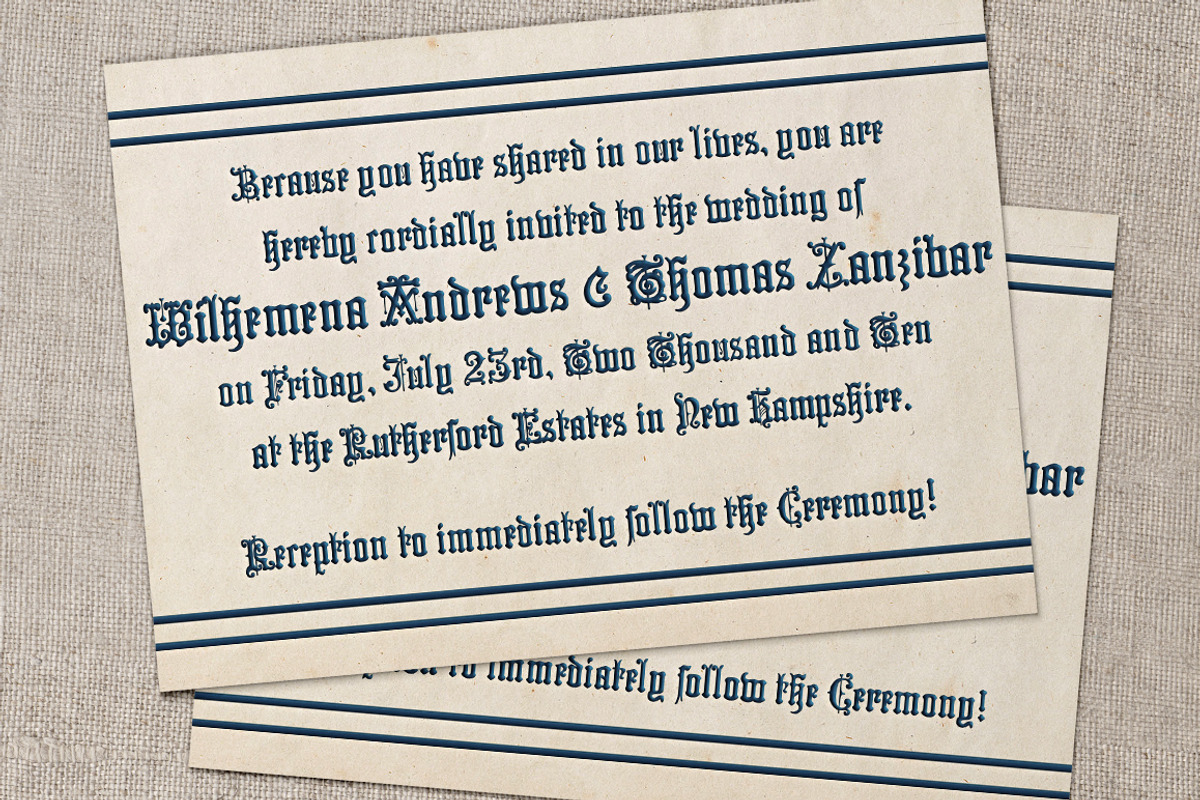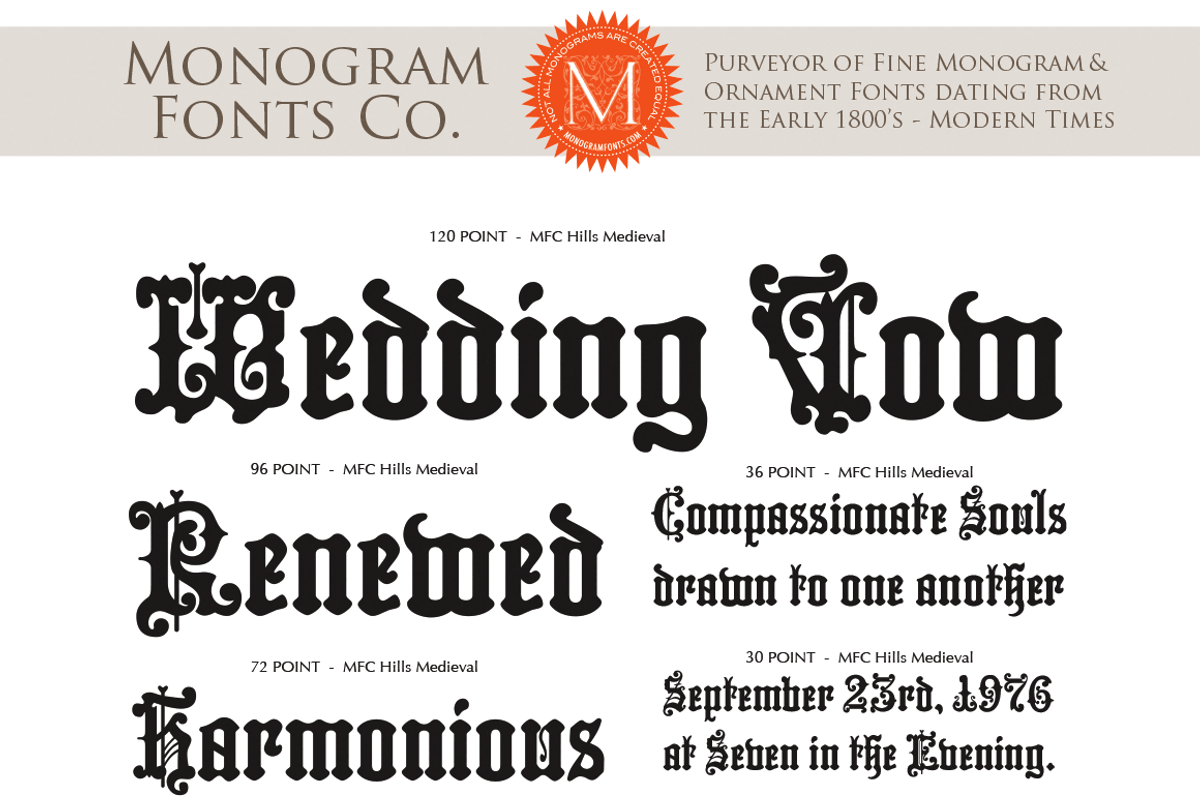
MFC Hills Medieval
MFC Hills Medieval by Monogram Fonts Co. is a font selected for branding, posters, packaging, typography.
- From stylish and ornate capitals to a soft lowercase resembling bled ink, this period lettering style is a true eye-catcher.
- Because of some of the unique medieval letterforms, standardized letterforms were created as the default typeable letters while the true his
Why MFC Hills Medieval is worth a look
MFC Hills Medieval by Monogram Fonts Co. fits naturally into Branding, posters, packaging, typography.